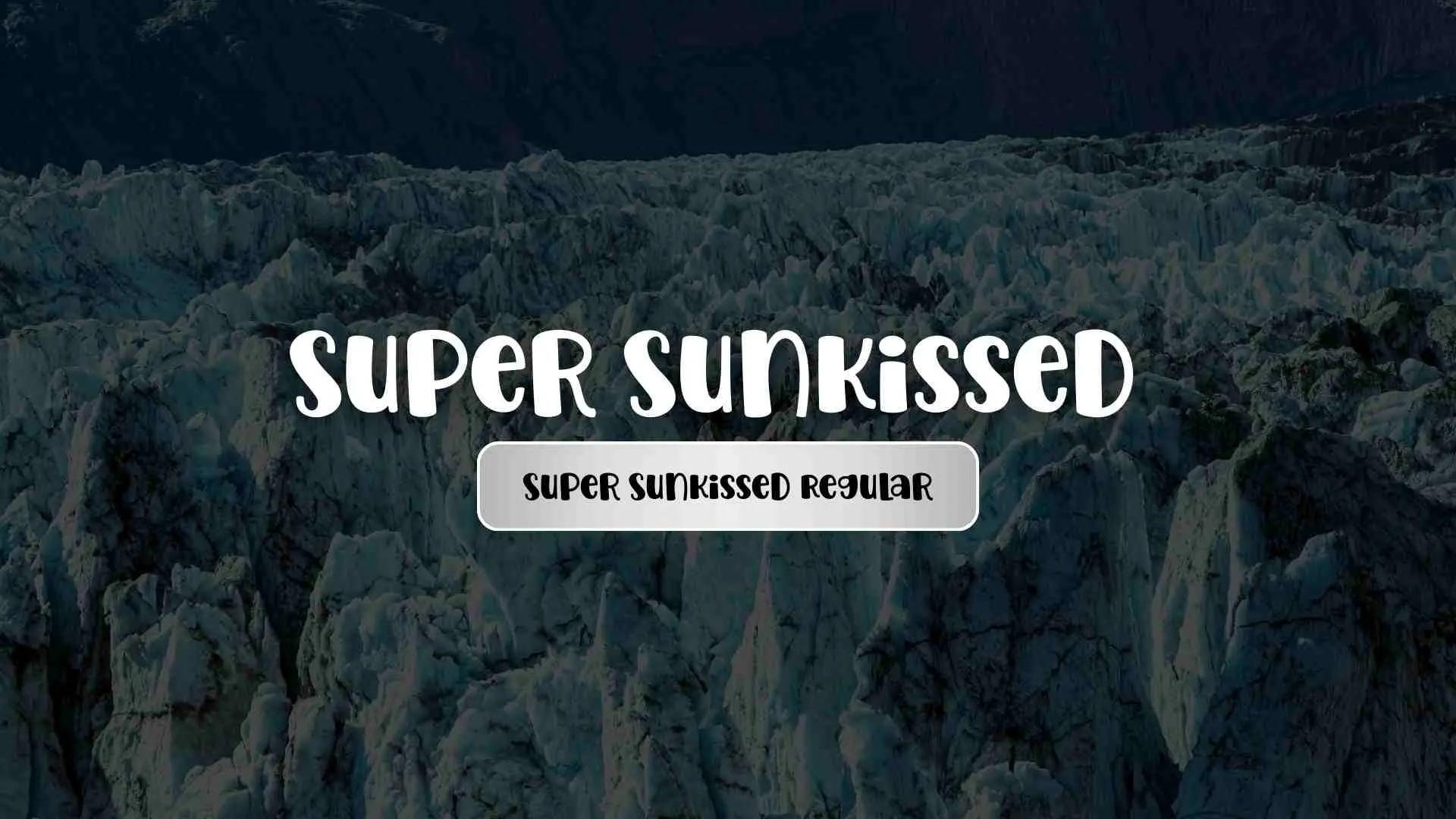
The font Super Sunkissed Regular, designed by Fsuarez, falls under the Display, Sans Serif category & Super Sunkissed font family. Its smooth, flowing letterforms make it a versatile choice for projects that require both elegance and readability. Super Sunkissed is particularly well-suited for Packaging, Social Media Graphics and Posters, Vacation and Travel-themed Branding and Greeting Cards and Invitations. With its balance of simplicity and decorative appeal, this font brings a polished touch to both personal and professional designs.